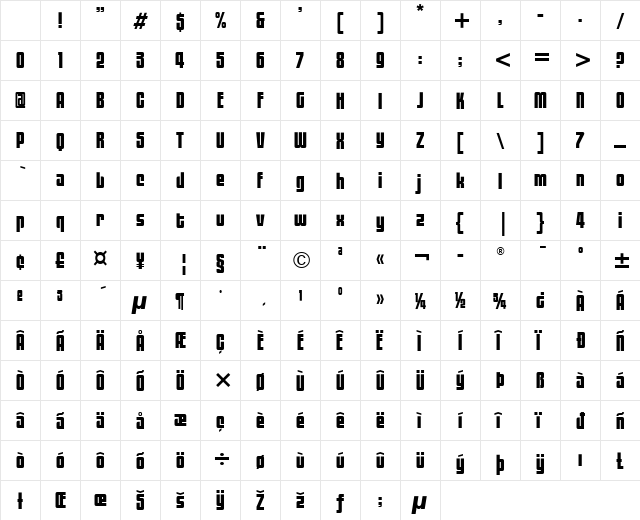
Complete Black Tulip ITC Black glyph index. Displaying only characters natively supported by Black Tulip ITC Black font.
Black Tulip ITC is a composed and adaptable typeface that performs quietly and consistently across a wide range of design contexts.
Who designed the Black Tulip ITC Black font?